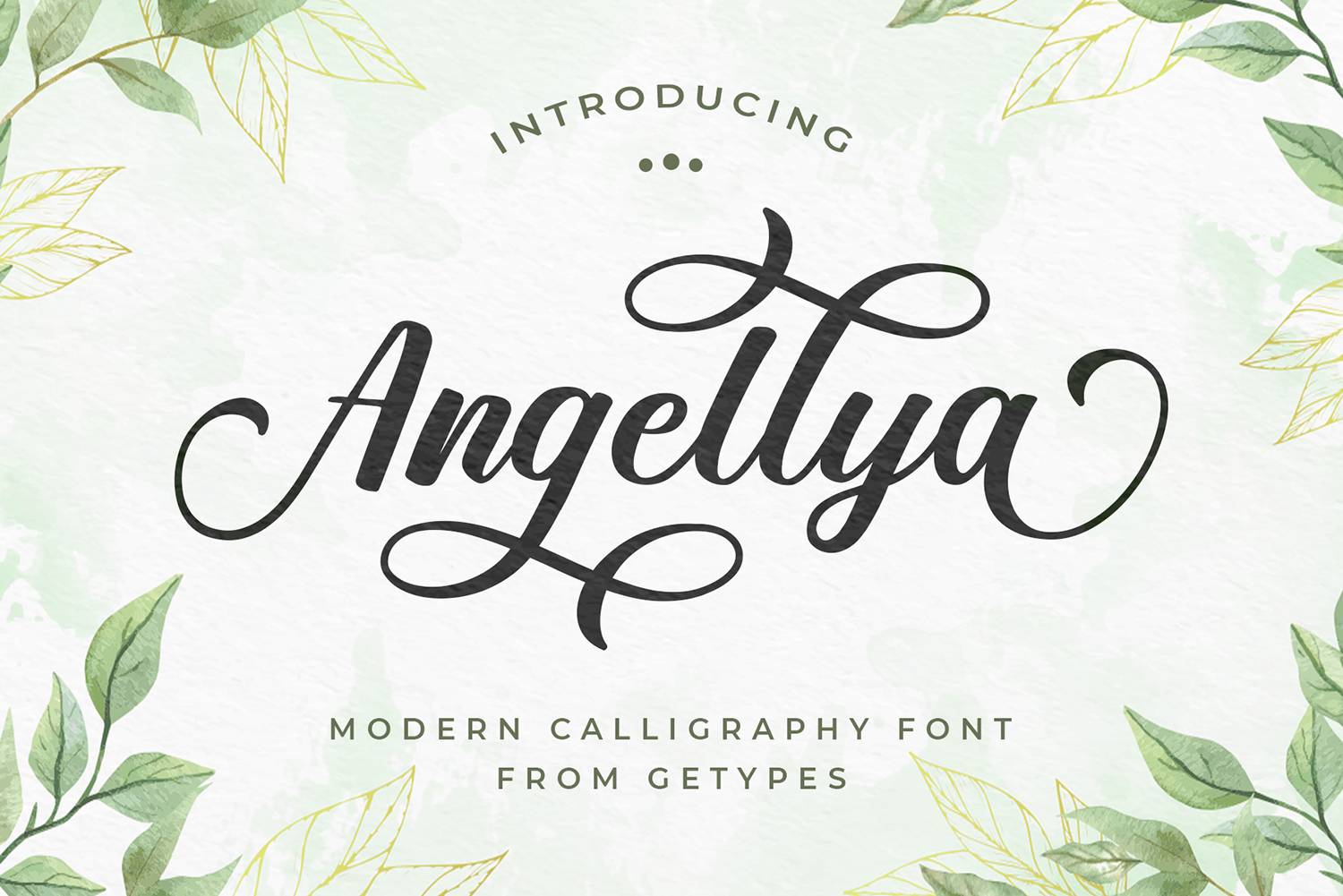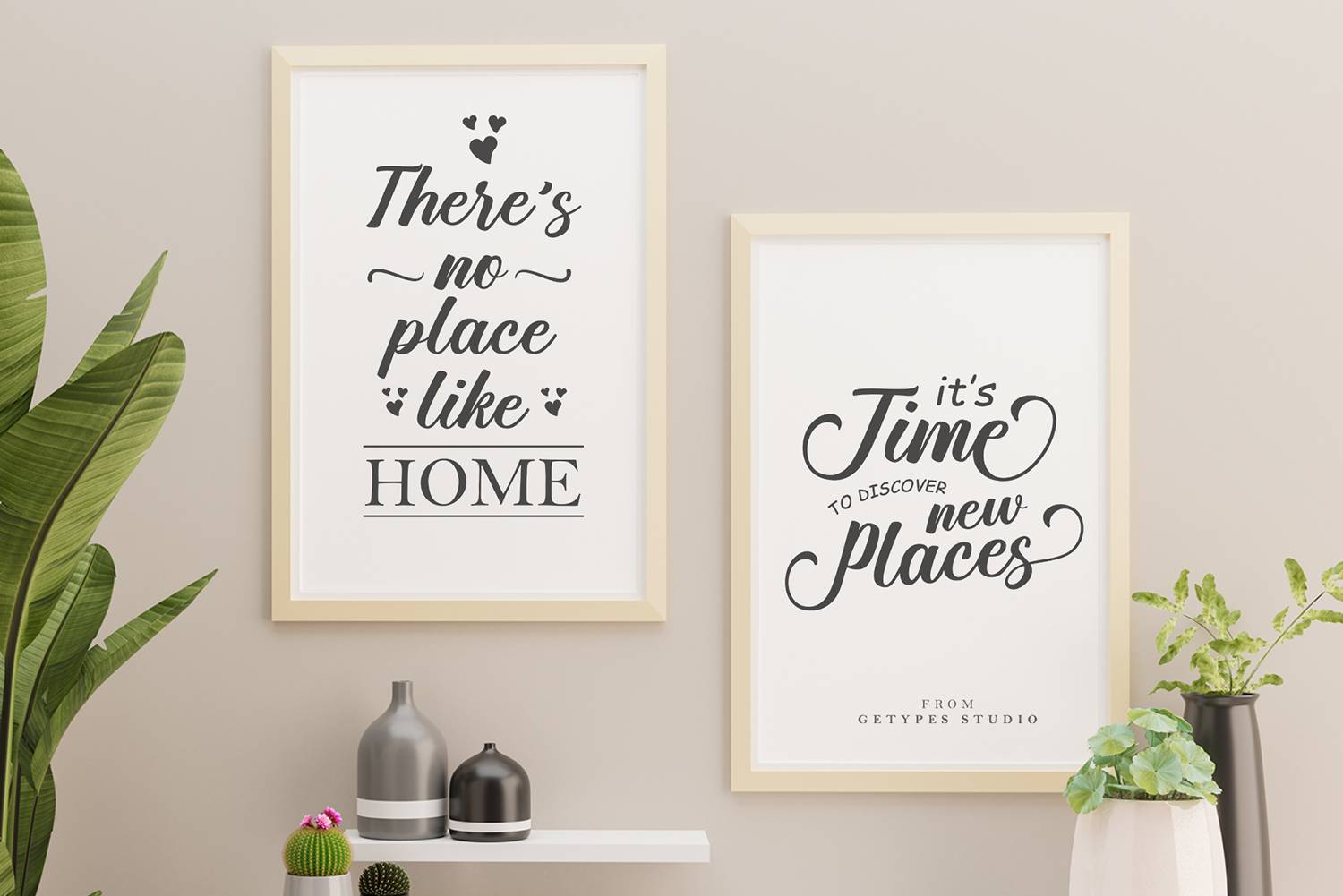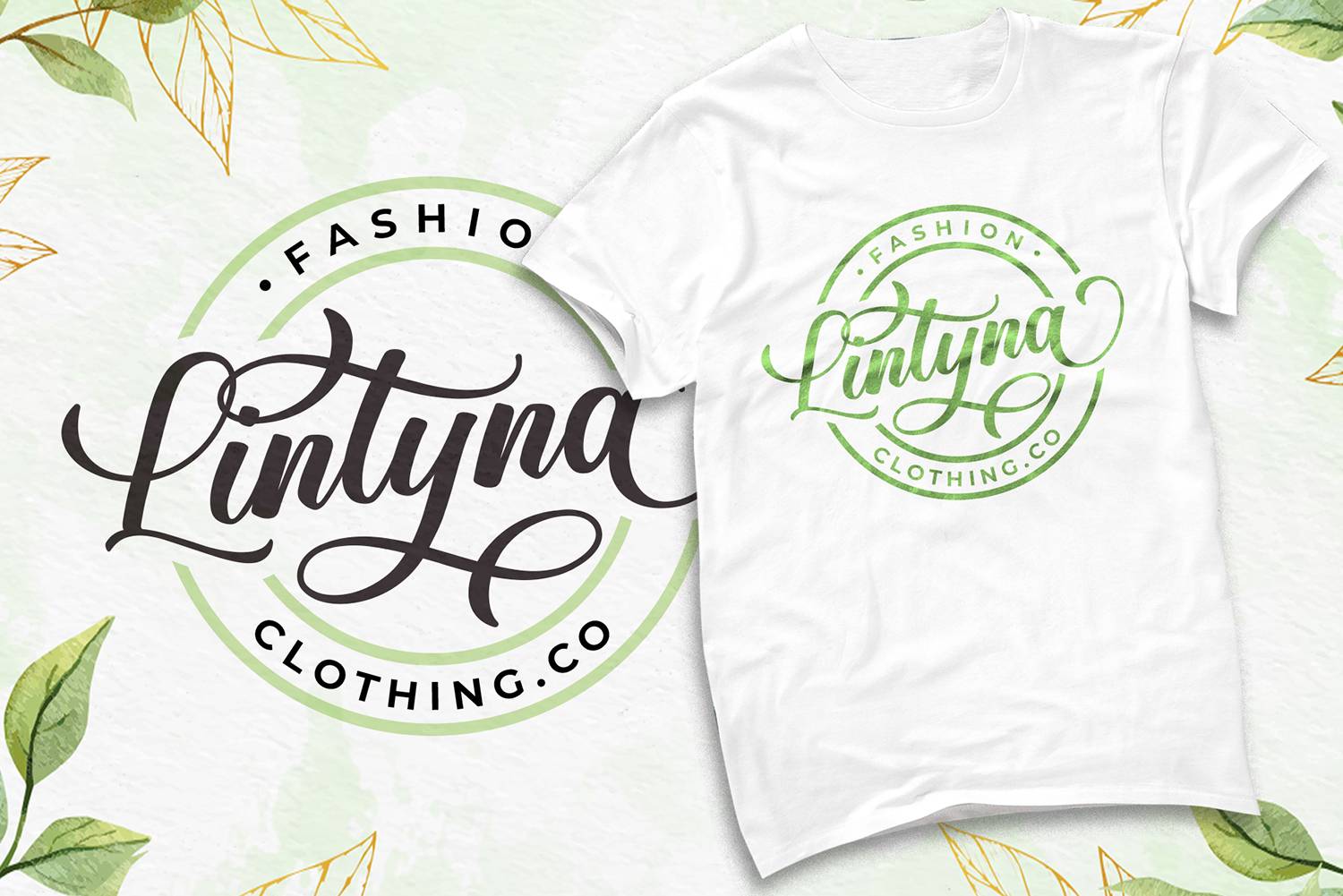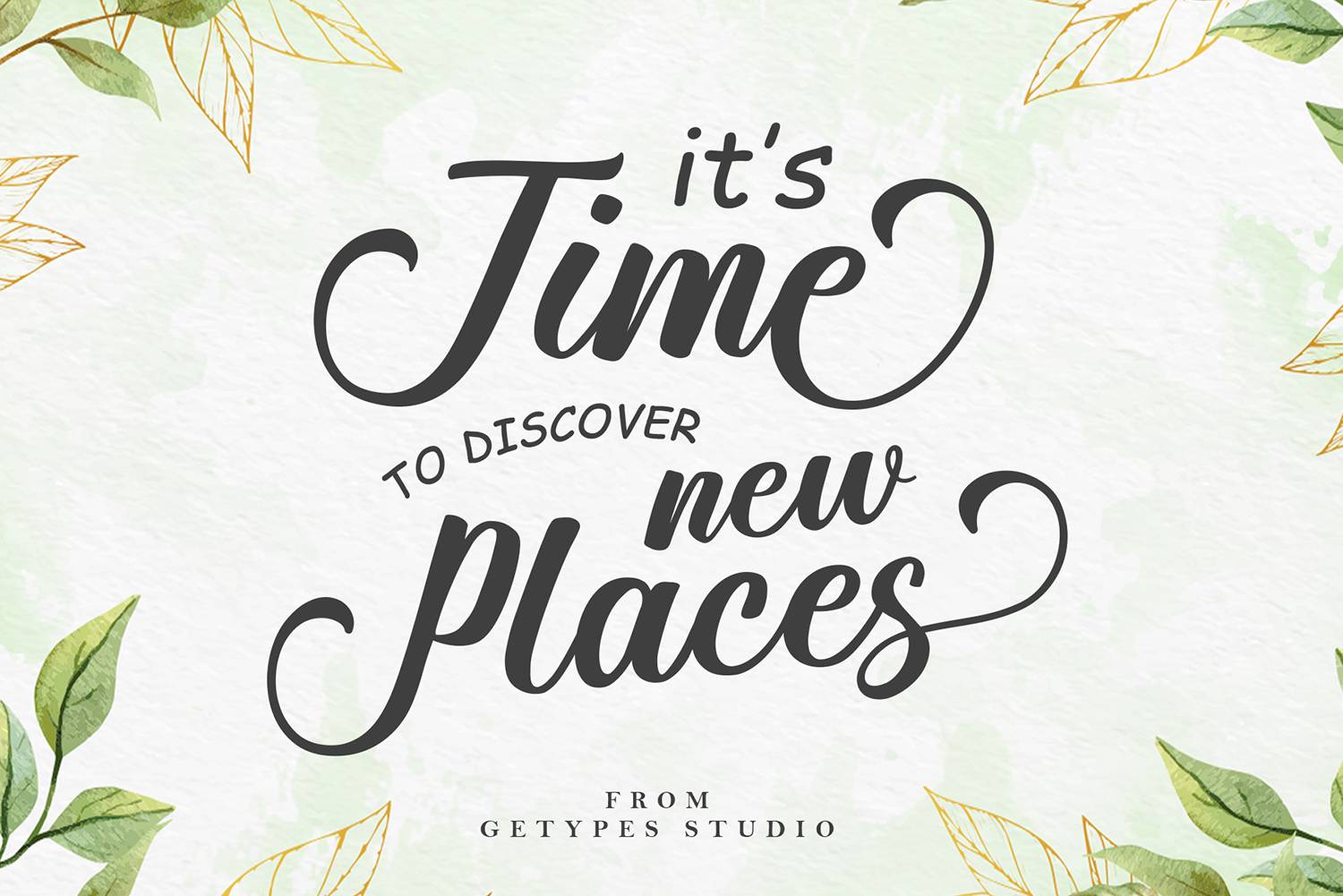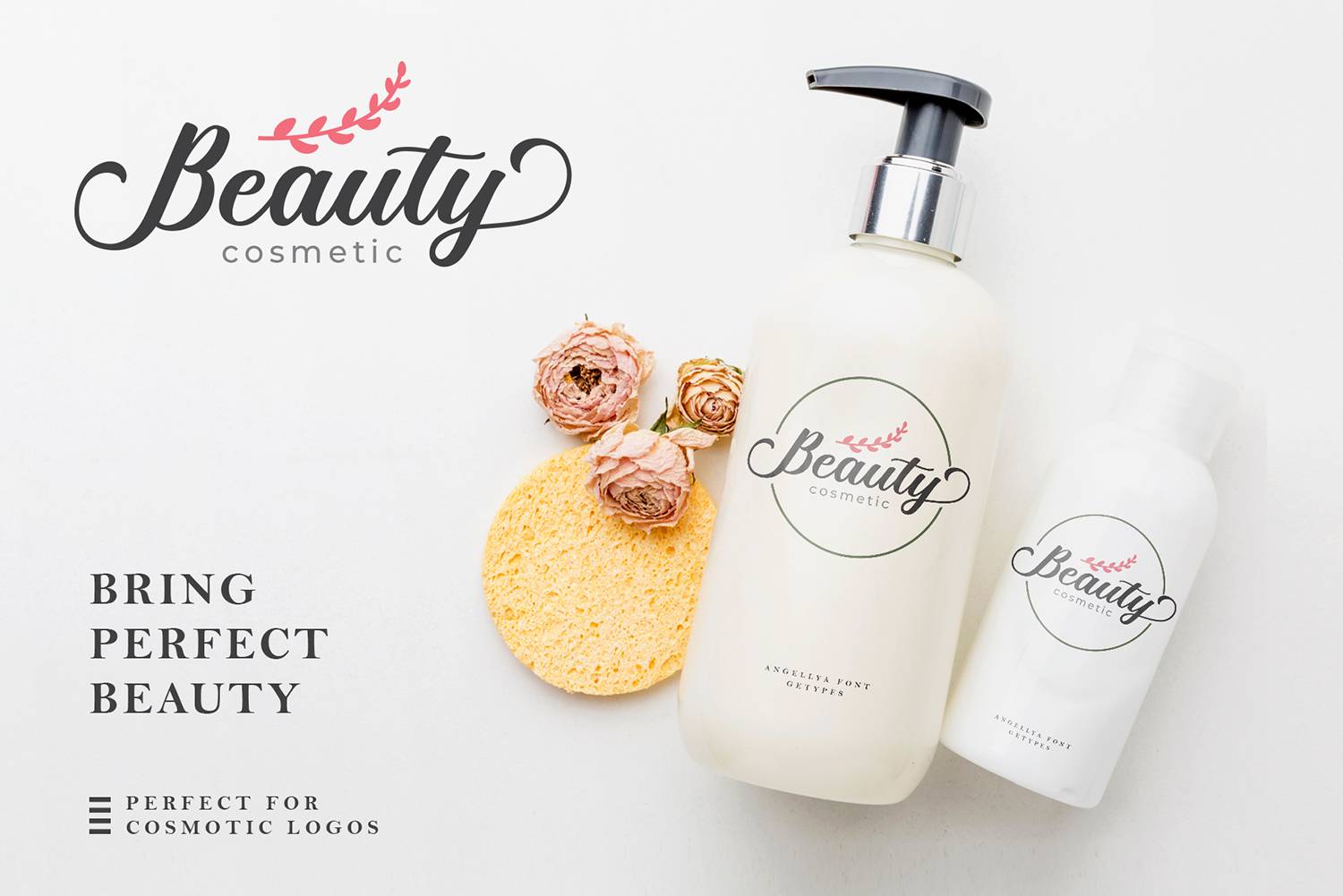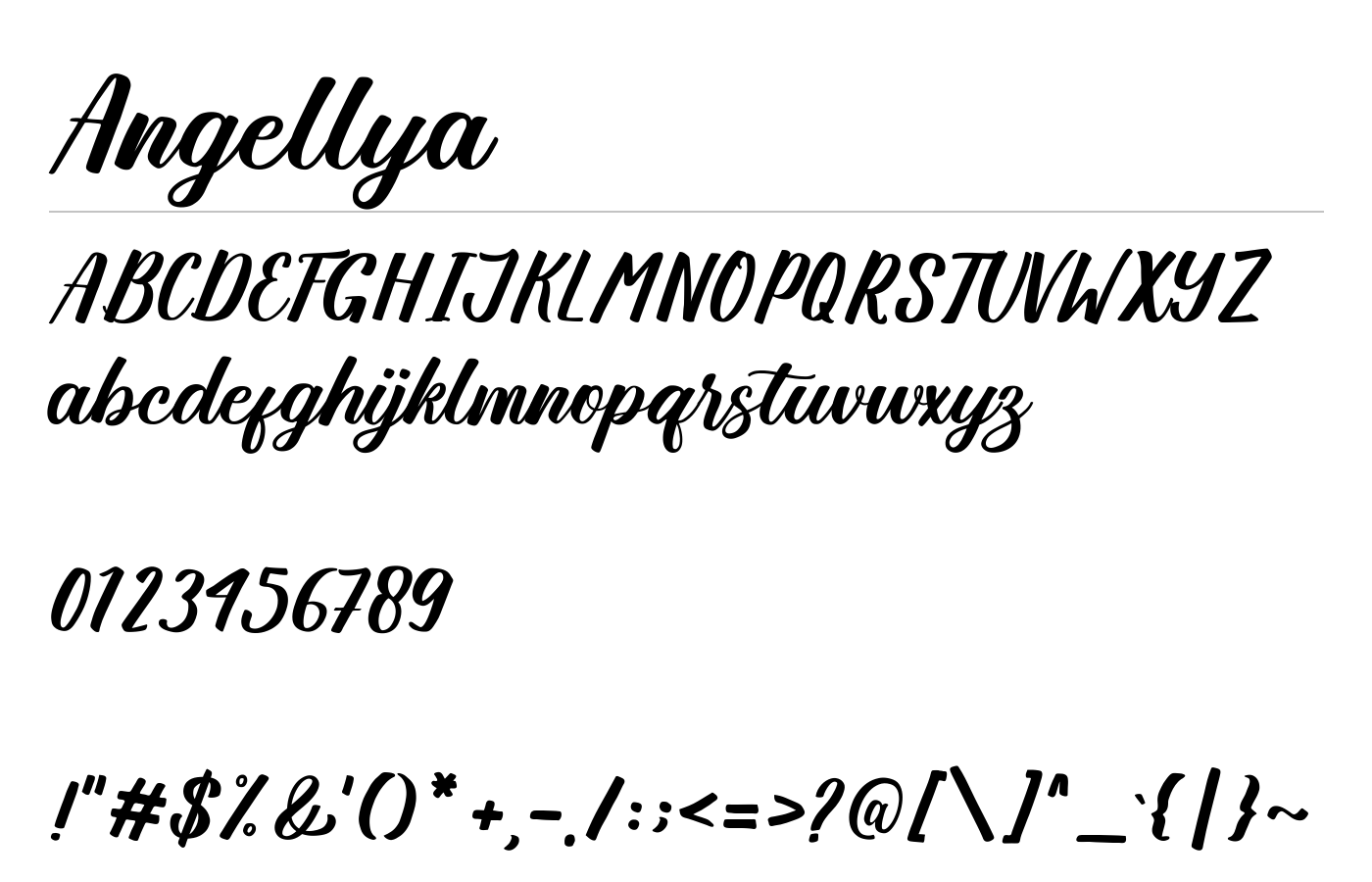
Angellya is a stylish, brush-script font with a smooth, flowing texture that combines elegance and modernity. Its moderately bold weight and slanted letterforms give it a dynamic, lively feel, making it ideal for fashion branding, invitations, and creative headlines where a personal, sophisticated touch is desired. This font’s clear readability and charming curves work well to convey warmth and creativity in both print and digital designs.
Angellya Font
About Angellya Font
| Font family | Angellya Font |
| Release date | 2021-01-13 |
| Designer | Rizaldi Wandani |